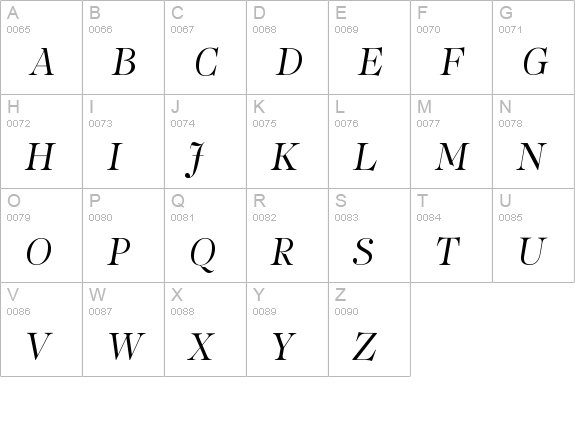
PFRegalDisplayPro-Italic is a distinctive, italic variant in the PFRegalDisplayPro typeface family \xE2\x80\x94 well suited to design and typography projects.
PFRegalDisplayPro-Italic is an elegant and sophisticated font that exudes a sense of luxury and refinement. With its slanted design and graceful curves, this italic typeface adds a touch of sophistication to any project. The sleek and modern look of PFRegalDisplayPro-Italic makes it perfect for use in branding, advertising, and editorial design. What sets PFRegalDisplayPro-Italic apart is not only its stunning aesthetics but also the fact that it is available for free download at FontsMarket.com. This means that you can easily access and use this high-quality font in your projects without any extra cost. Whether you're designing a logo, creating a poster, or crafting a wedding invitation, PFRegalDisplayPro-Italic is sure to elevate your design and make a lasting impression. Download it today and add a touch of elegance to your creations.